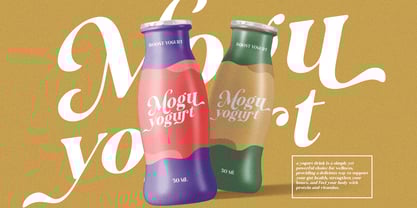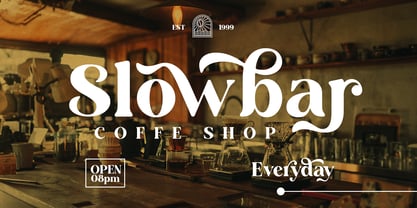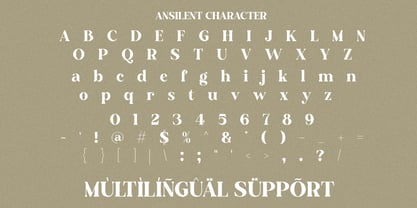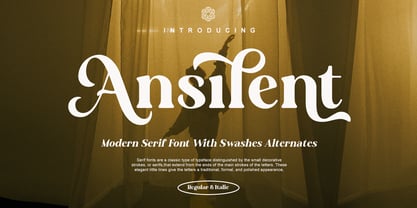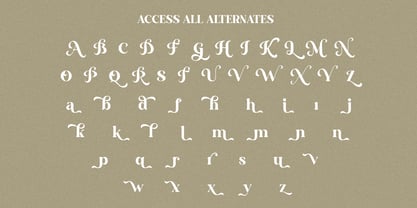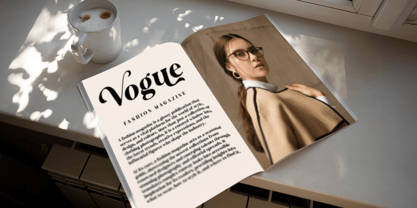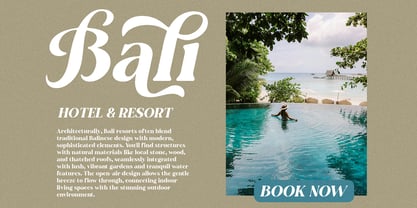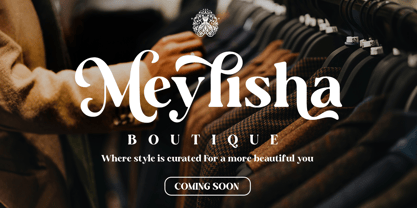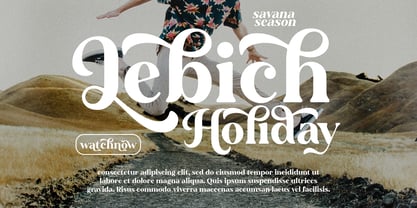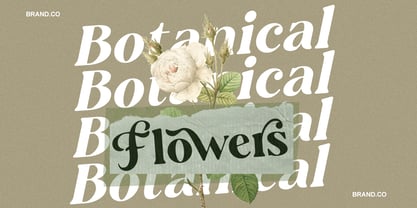
Ansilent
The Ansilent Font Family was designed by Yogiswhara Dio Prakoso Riadi and published by RagamKata. Ansilent contains 2 styles and family package options.
Ansilent is a modern serif font with swashes alternates, designed to enhance any creative project. Provides a striking with alternates swashes presence ideal for impactful headlines and logos. Ansilent is perfectly suitable for creating nostalgic yet still elegant designs such as logos, packaging, editorial, and more.
- Stylish Alternates
- Multi Language Support